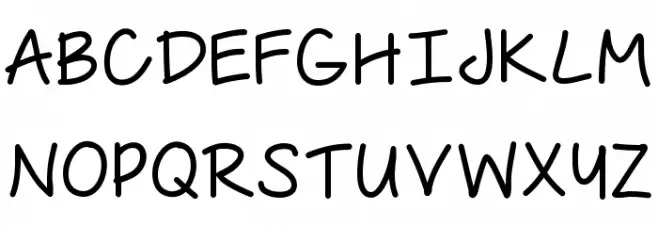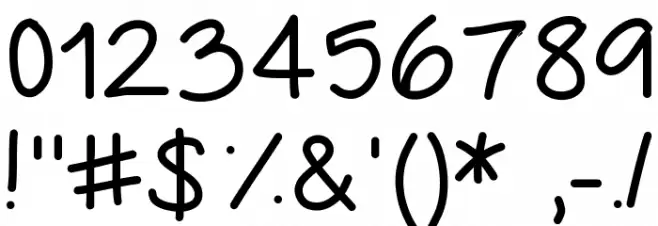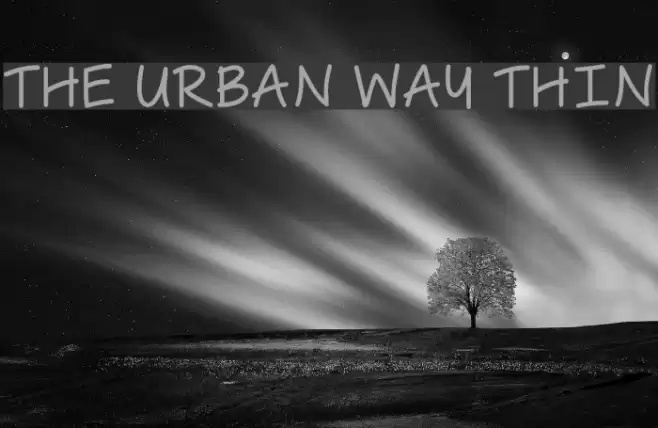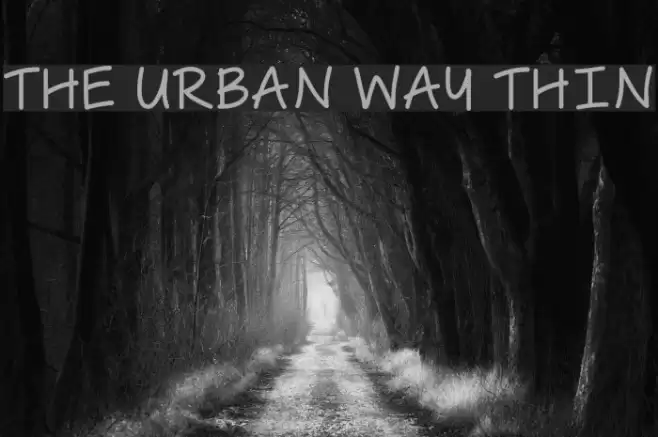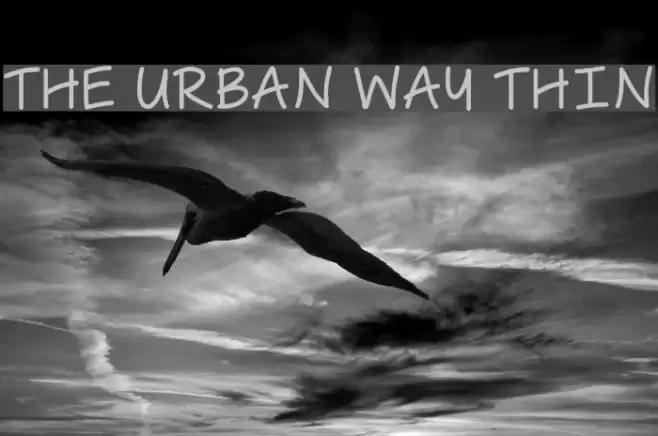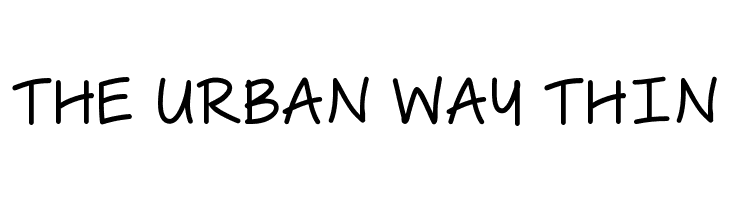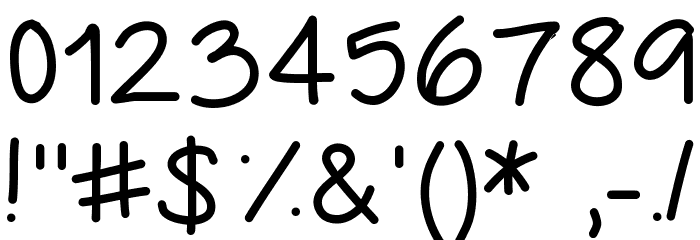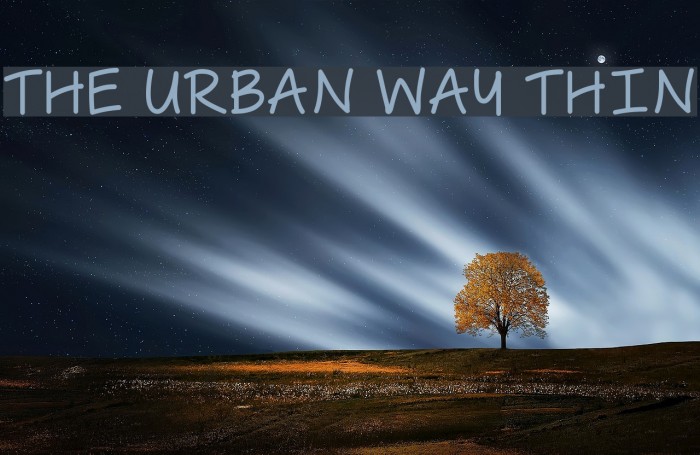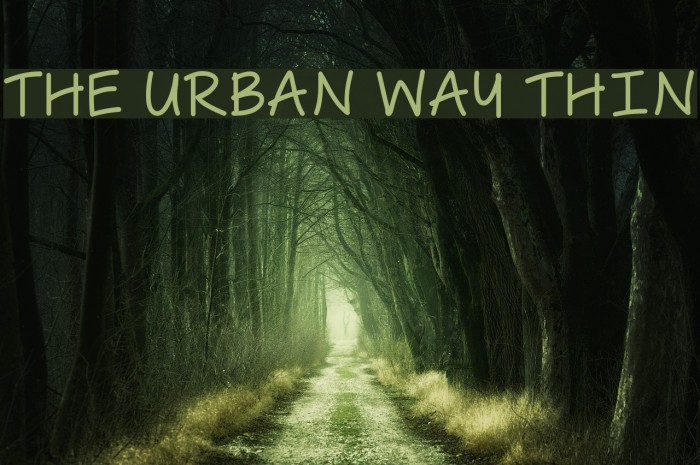
The Urban Way Thin
This font features a casual, handwritten style with a playful and informal appearance. The characters are slightly slanted, giving a dynamic and lively feel. The strokes are consistent in thickness, providing a uniform look across all letters and numbers. The uppercase and lowercase letters maintain a cohesive style, with rounded edges and a smooth flow. The numerals are clear and easy to read, matching the overall aesthetic. Special characters are included, maintaining the same playful and approachable style. This font is ideal for projects that require a personal touch and a friendly tone.
A casual, handwritten font with a playful and informal style.
- Proposed Projects: Ideal for greeting cards, personal blogs, children's books, and casual branding.
- Overall Style: Casual
- Use Case: Headlines, Informal text, Personal projects